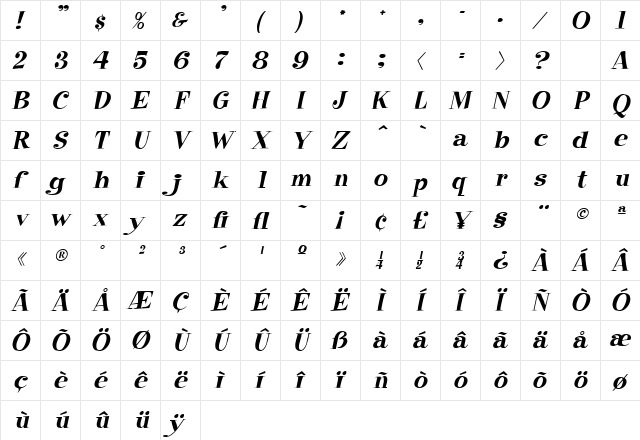
Raskin Italic Font Preview
Raskin Italic
Raskin Italic Font Details
Design Context for Raskin Typeface
Raskin offers clean, dependable letterforms without strong stylistic allegiance, making it a practical choice for designers who need flexibility. The dynamic lean of this cut emphasises speed and emphasis in any layout.
Pro Tip: Try Raskin for annotation and caption copy alongside an upright companion — the contrast in angle creates a dynamic but ordered typographic system.